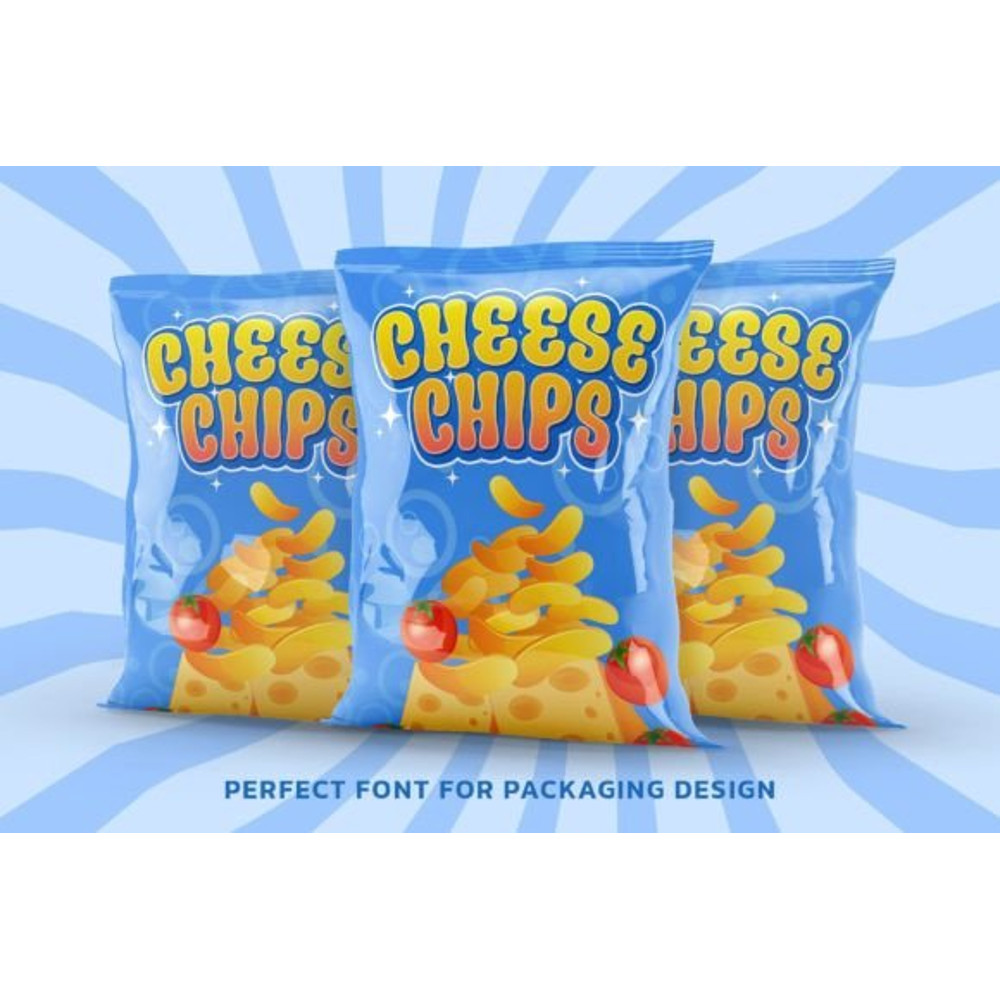
Parade Groovy is a modern and groovy display font perfect for creating t-shirts, stickers, cover books, children's books, social media posts, invitations, and much more!